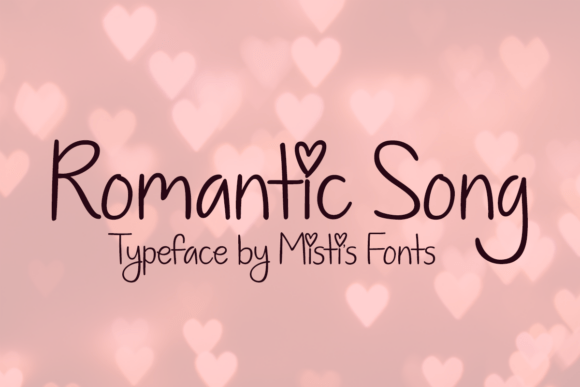
Romantic Song Font: Add a Touch of Love and Warmth to Your Designs
Are you looking for a font that can convey the emotions of love and warmth? Do you want to create designs that are charming, playful, and sweet? Look no further than the Romantic Song Font! This beautiful handwritten font is perfect for Valentine’s Day cards, love notes, and heartfelt designs. In this article, we’ll explore the features and benefits of Romantic Song Font and show you how to use it to add a touch of romance to your projects.
Features of Romantic Song Font
- Handwritten with love: Romantic Song Font is a carefully crafted handwritten font that exudes love and warmth. Each letter is written with a personal touch, making it perfect for designs that require a human touch.
- Playful strokes: The font features playful strokes that add a touch of whimsy to your designs. The strokes are smooth and flowing, making it easy to read and understand.
- Sweet curves: Romantic Song Font is characterized by its sweet curves that give it a charming and feminine touch. The curves add a level of sophistication and elegance to your designs.
- Perfect for Valentine’s Day: The font is perfect for Valentine’s Day cards, love notes, and other designs that require a romantic touch.
Benefits of Using Romantic Song Font
- Adds a personal touch: Romantic Song Font adds a personal touch to your designs, making them more relatable and engaging.
- Evokes emotions: The font has the power to evoke emotions, making it perfect for designs that require a emotional connection with the audience.
- Versatile: Romantic Song Font is versatile and can be used for a variety of designs, including Valentine’s Day cards, love notes, and heartfelt designs.
- Easy to read: The font is easy to read, making it perfect for designs that require a clear and concise message.
Uses of Romantic Song Font
- Valentine’s Day cards: Romantic Song Font is perfect for creating Valentine’s Day cards that are charming, playful, and sweet.
- Love notes: The font is ideal for creating love notes that are heartfelt and emotional.
- Heartfelt designs: Romantic Song Font can be used to create heartfelt designs that require a personal touch.
- Wedding designs: The font can be used for wedding designs, including wedding cards, invitations, and decorations.
Tips and Tricks for Using Romantic Song Font
Romantic Song Font Specifications
- Font type: Handwritten
- Font style: Script
| Font Name | Romantic Song Font |
| Author | Misti |
Romantic Song Font is a charming handwritten font that is perfect for designs that require a personal touch. With its playful strokes and sweet curves, it’s ideal for Valentine’s Day cards, love notes, and heartfelt designs. By following the tips and tricks outlined in this article, you can use Romantic Song Font to add a touch of romance to your projects.
- What is Romantic Song Font?: Romantic Song Font is a charming handwritten font that is perfect for designs that require a personal touch.